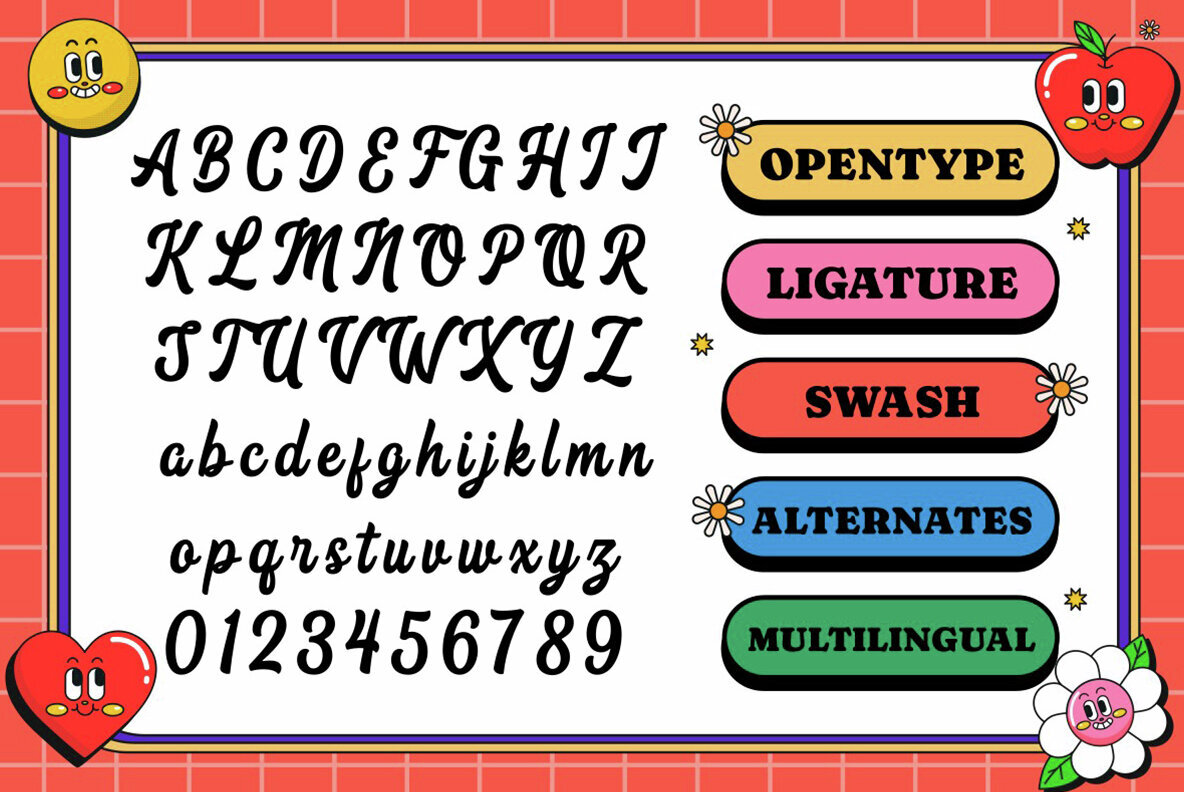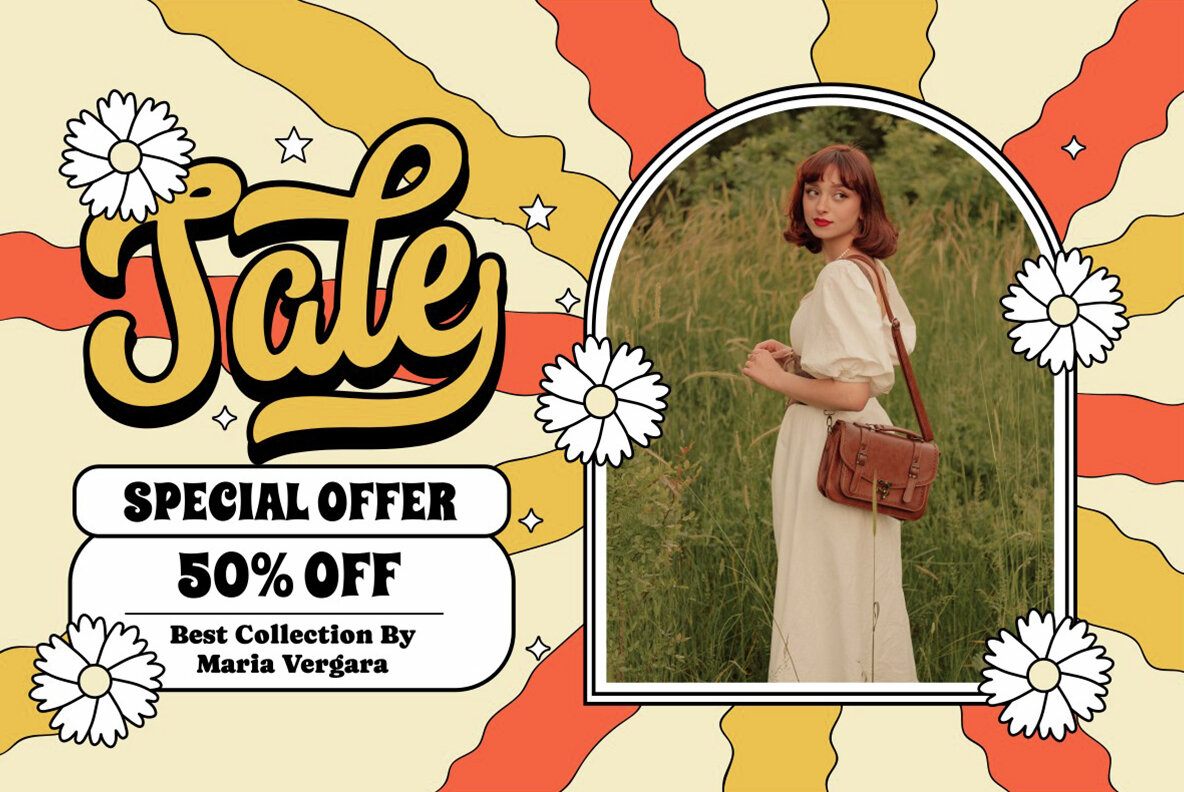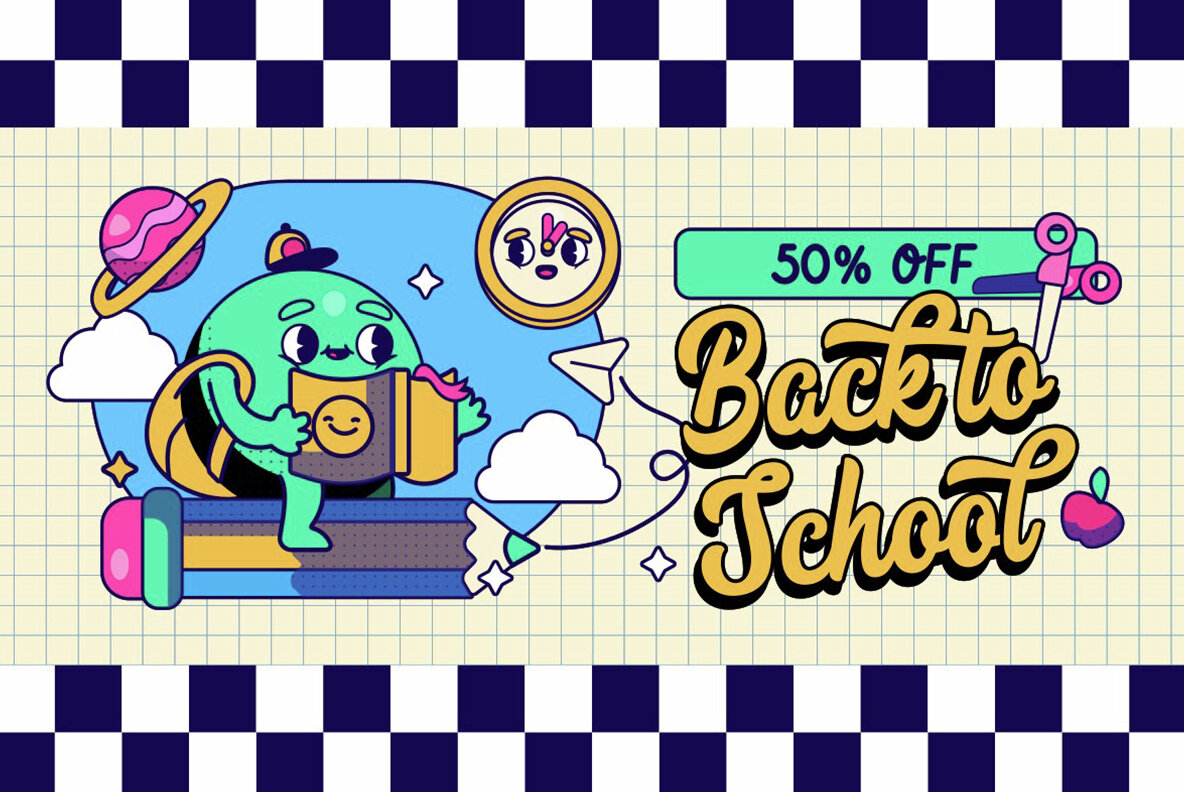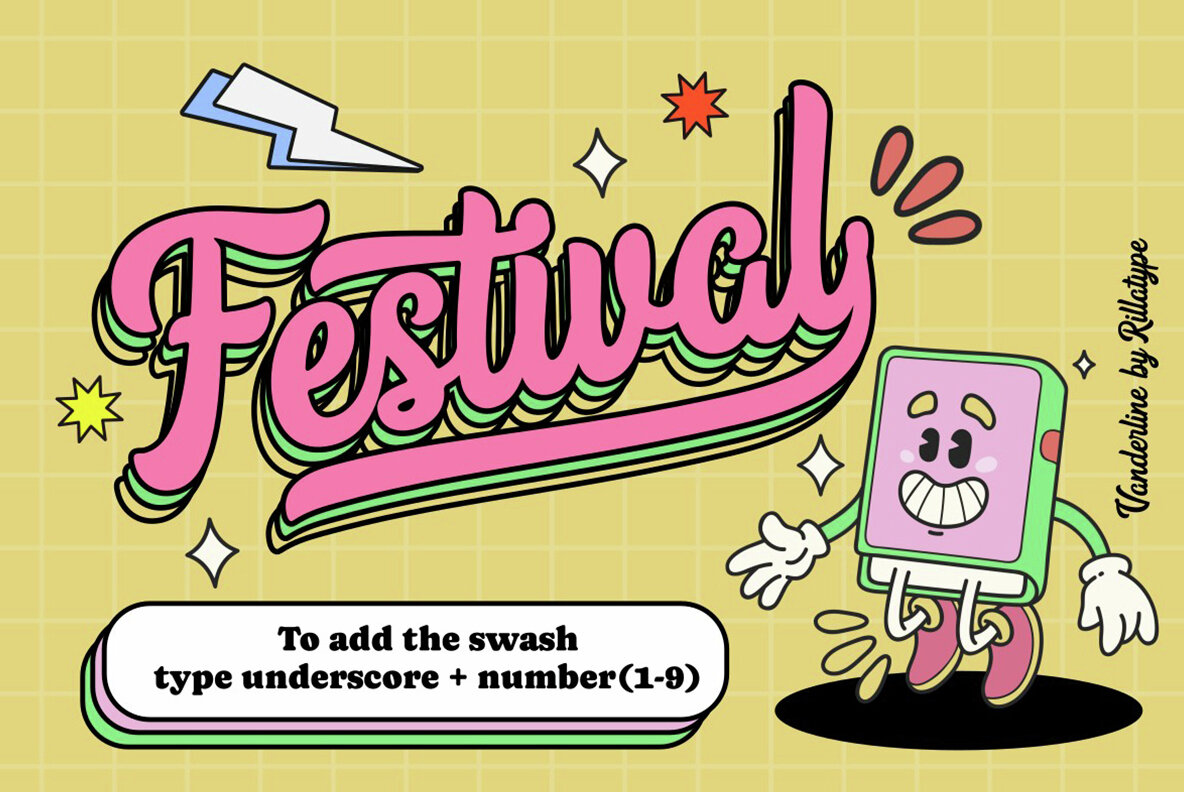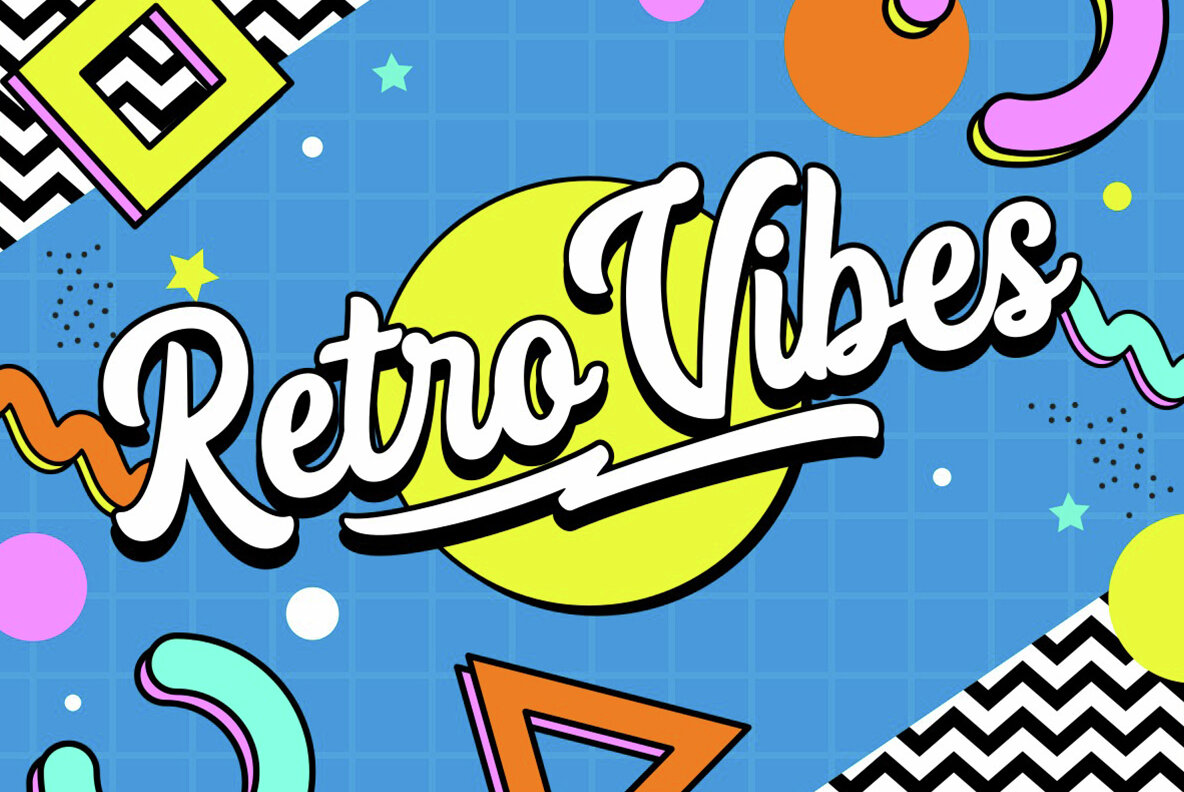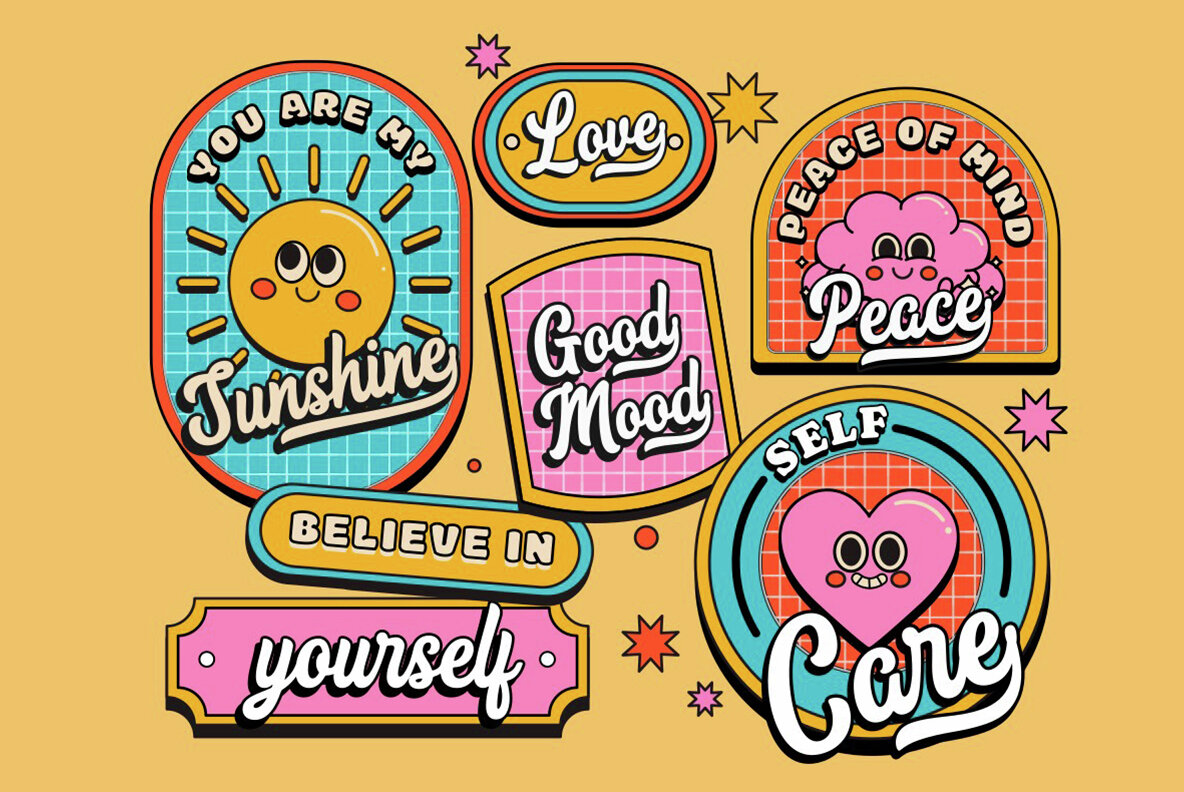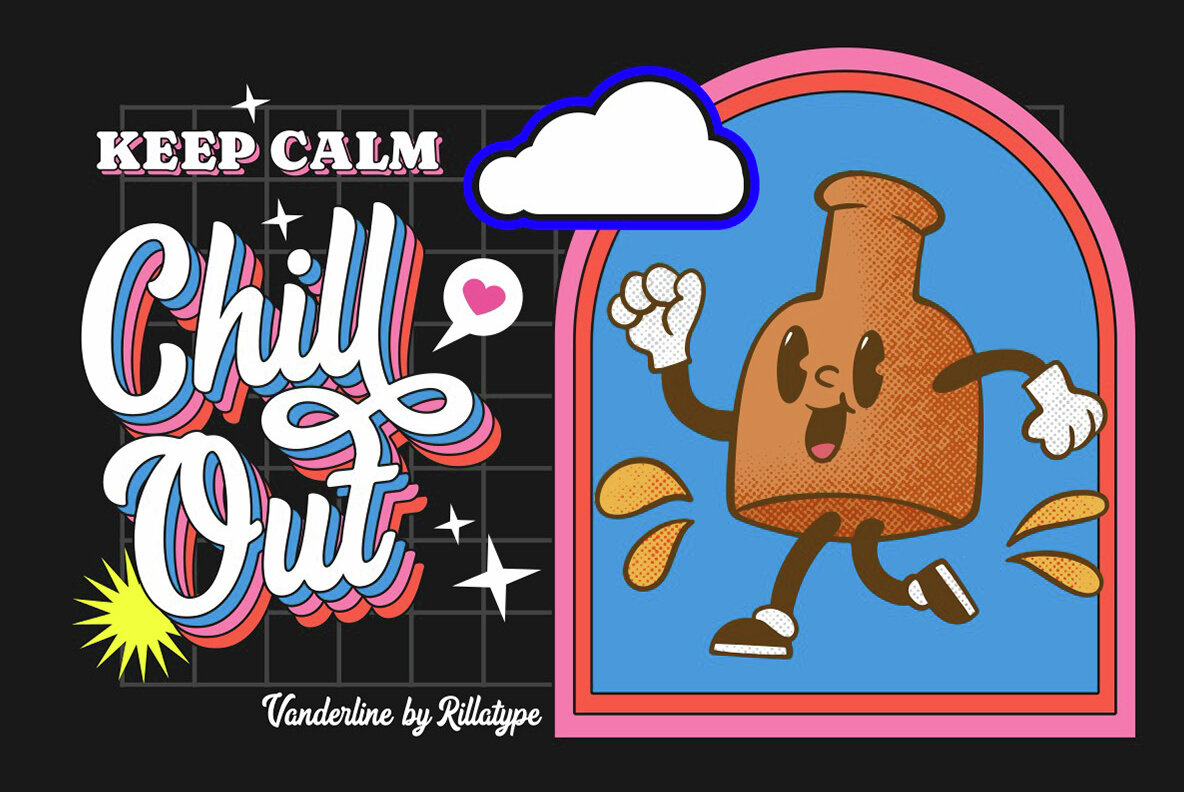
Vanderlin Font
Vanderlin Regular
Introducing "Vanderlin," a captivating retro script font that takes you on a nostalgic journey. With its charming swashes and alternate characters, Vanderlin adds a touch of vintage elegance to your designs. Crafted with precision, this font offers versatility and a timeless appeal. Whether you're working on a poster, logo, or any design project, Vanderlin brings a perfect blend of classic and contemporary. Elevate your creations with the distinctive style of Vanderlin and let your designs resonate with the beauty of the past.